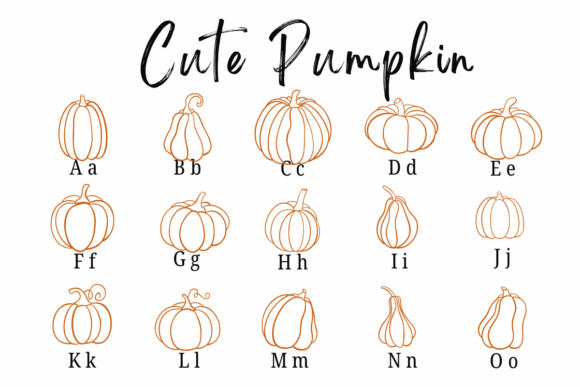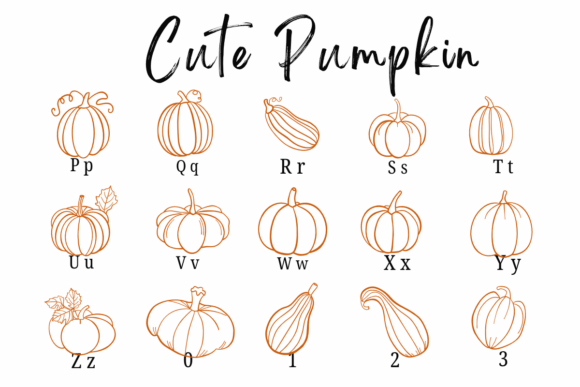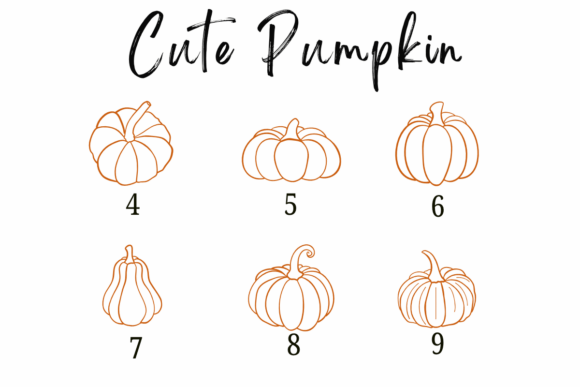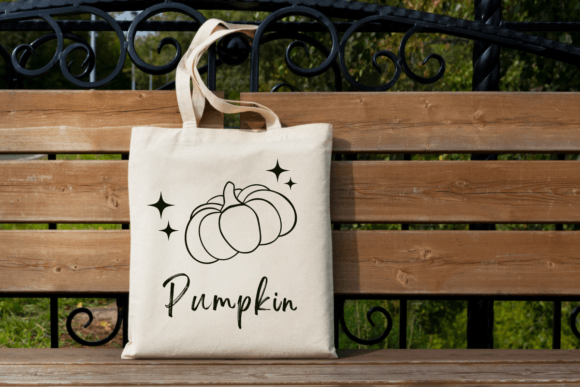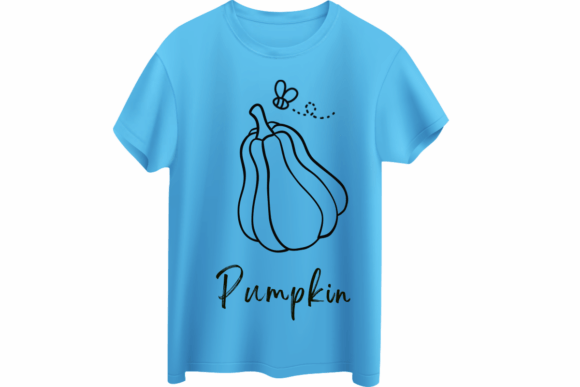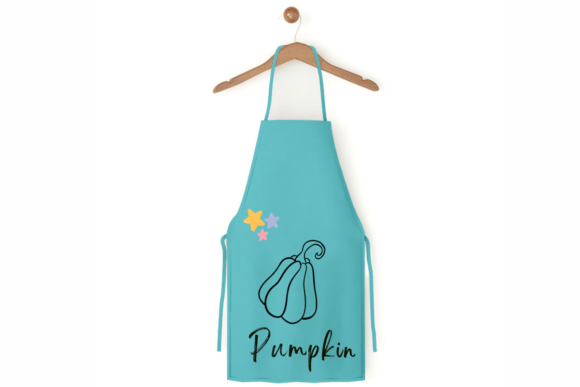
Cute Pumpkin Font: The Perfect Addition to Your Autumn-Themed Projects
As the leaves change colors and the air grows crisper, our minds turn to the cozy warmth of autumn. For designers and crafters, this season brings a wealth of creative opportunities, from festive wedding invitations to seasonal decorations. One of the most iconic symbols of autumn is the pumpkin, and what better way to incorporate it into your designs than with a Cute Pumpkin Font?
What is Cute Pumpkin Font?
Cute Pumpkin is a delightful dingbats font that captures the essence of autumn with its adorable pumpkin illustrations. This charming font is perfect for adding a touch of seasonal whimsy to your creative projects. Whether you’re designing wedding invitations, crafting DIY decorations, or brainstorming logo ideas, Cute Pumpkin Font is sure to inspire your creativity.
Features of Cute Pumpkin Font
- Autumn Theme: The font features an assortment of pumpkin illustrations, perfect for autumn-themed projects.
- Dingbats Style: Cute Pumpkin Font is a dingbats font, which means it’s comprised of graphical symbols and illustrations rather than traditional letters.
- Versatile: Use it for a wide range of creative projects, from digital designs to handmade crafts.
Creative Ways to Use Cute Pumpkin Font
The possibilities are endless when it comes to incorporating Cute Pumpkin Font into your designs. Here are a few ideas to get you started:
Wedding Invitations
Add a touch of autumn charm to your wedding invitations with Cute Pumpkin Font. Use it to create adorable illustrations of pumpkins, leaves, and other seasonal elements.
DIY Crafts
Take your DIY crafts to the next level with Cute Pumpkin Font. Use it to create custom signs, decorations, and other handmade items that showcase your autumnal style.
Decorations
From banners to centerpieces, Cute Pumpkin Font is the perfect addition to your autumn decorations. Use it to create eye-catching signs, garlands, and other decorative elements.
Logos and Branding
Give your business a seasonal boost with Cute Pumpkin Font. Use it to create a logo or branding elements that showcase your autumnal style.
Tips for Using Cute Pumpkin Font
To get the most out of Cute Pumpkin Font, here are a few tips to keep in mind:
Combine with Other Fonts
Pair Cute Pumpkin Font with other fonts to create a unique and eye-catching design. Try combining it with a serif font for a classic look or a script font for a more whimsical feel.
Experiment with Colors
Don’t be afraid to experiment with different colors when using Cute Pumpkin Font. Try pairing it with autumnal hues like orange, yellow, and red for a seasonal look.
Use it Sparingly
While Cute Pumpkin Font is adorable, it’s best used sparingly. Try using it as an accent font to add a touch of whimsy to your designs.
Cute Pumpkin Font is a delightful addition to any designer’s toolkit. With its adorable pumpkin illustrations and versatile dingbats style, it’s the perfect font for autumn-themed projects. Whether you’re designing wedding invitations, crafting DIY decorations, or brainstorming logo ideas, Cute Pumpkin Font is sure to inspire your creativity. So why not give it a try and see how it can enhance your creative projects?